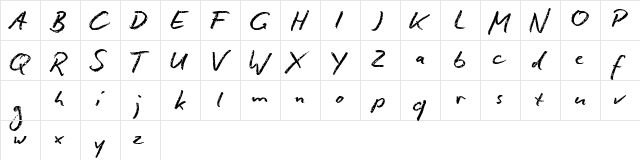
ContΠScript reduced Regular
| Foundry | Ingo Zimmermann ingoFonts Augsburg |
| Designer | Ingo Zimmermann |
Design Context for ContΠScript reduced Typeface
ContΠScript reduced flows with the natural rhythm of handwritten lettering, making it ideal for designs that call for warmth and personal expression.
Font Pairing: Combine ContΠScript reduced with a simple geometric sans for maximum contrast — the tension between flowing curves and clean structure is a classic typographic pairing.
Pro Tip: Pair ContΠScript reduced with a clean sans-serif for supporting text. The contrast between fluid script and geometric structure creates an elegant typographic hierarchy.